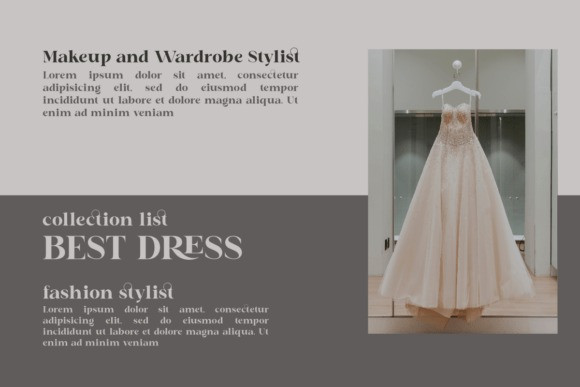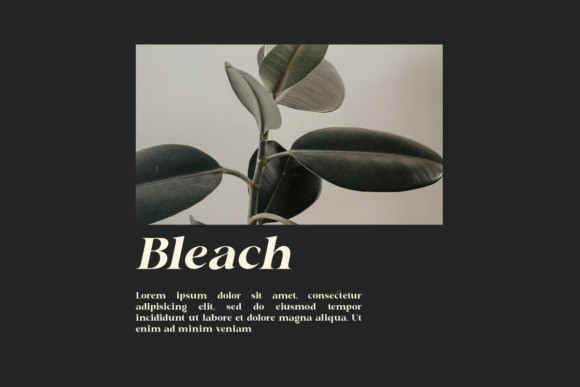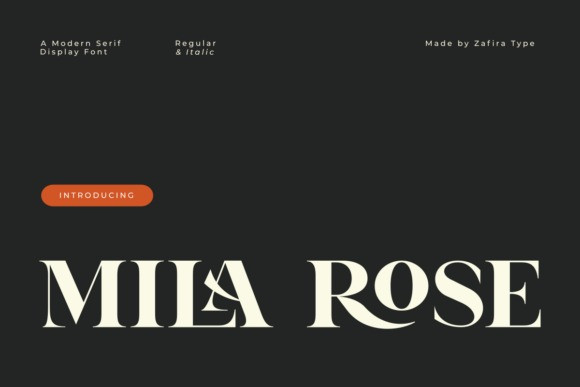
Mila Rose Font
Milarose Font is a refined serif typeface that radiates timeless beauty and graceful confidence. Designed with elegant contrast, soft curves, and delicate details, it brings a romantic sophistication to any project—whether you’re crafting wedding invitations, building a high-end brand, designing editorial layouts, or creating luxury packaging.
Its classic serif structure is subtly modernized with feminine nuances, making it an ideal choice for fashion brands, lifestyle content, and any design that seeks charm and elegance. Milarose includes beautiful ligatures, stylistic alternates, and full multilingual support, ensuring both versatility and visual harmony across a wide range of uses. With PUA encoding included, all special characters and decorative elements are easily accessible without additional software.